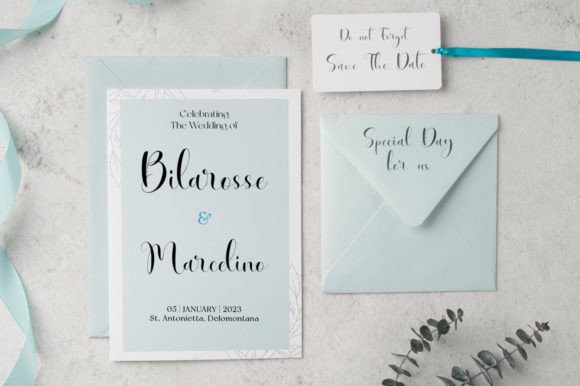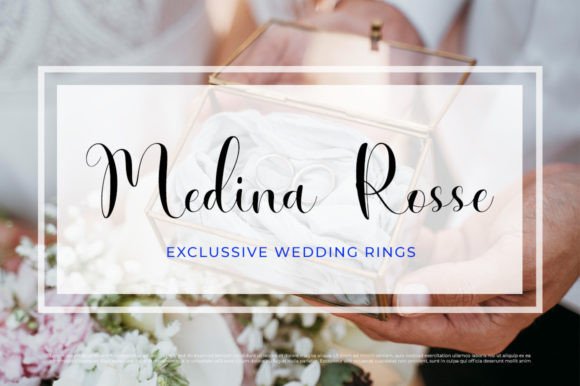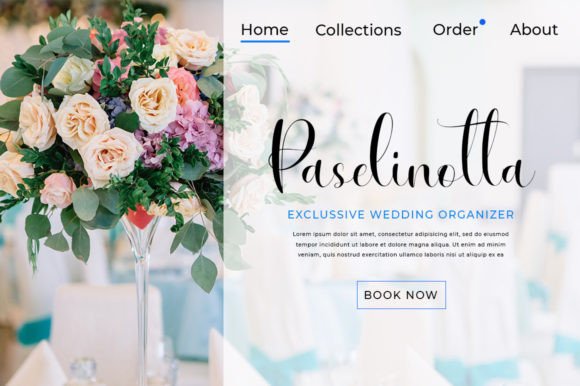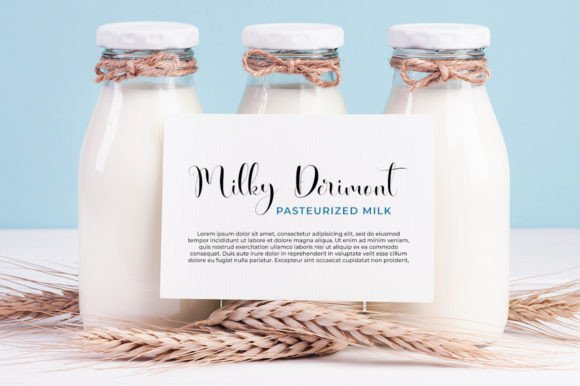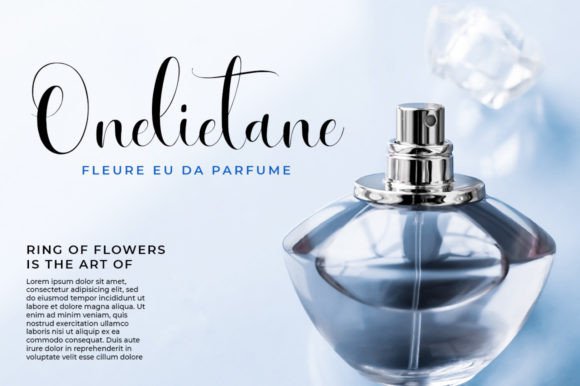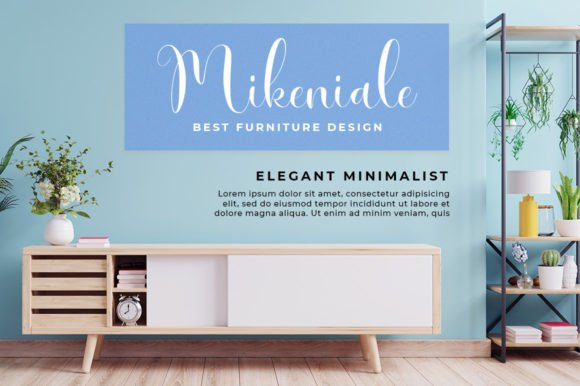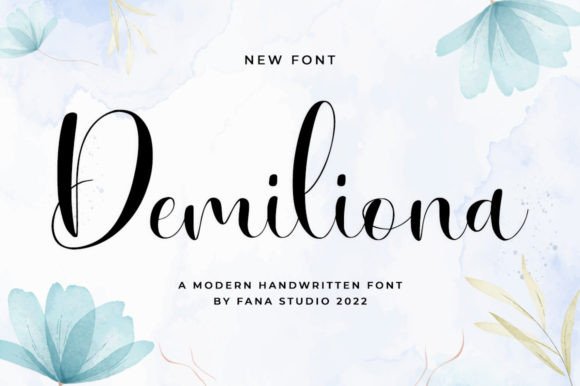
Discover the Charm of Demiliona Font: A Sweet and Cursive Handwritten Delight
Are you on the hunt for a font that adds a touch of sweetness and romance to your design projects? Look no further than the Demiliona Font! This beautiful, cursive handwritten font is perfect for designers and crafters who want to infuse their work with a sense of joy and whimsy. In this article, we’ll dive into the world of Demiliona Font, exploring its features, uses, and benefits, and why it’s a must-have for any creative looking to elevate their designs.
What is Demiliona Font?
Demiliona Font is a sweet and cursive handwritten font that boasts a gentle, elegant feel. Its flowing lines and curves create a sense of movement and fluidity, making it perfect for designs that require a touch of sophistication and whimsy. Whether you’re working on a branding project, a wedding invitation, or a craft tutorial, Demiliona Font is sure to add a romantic and joyful touch to your work.
Key Features of Demiliona Font
- Sweet and Cursive: Demiliona Font features a beautiful, cursive script that’s perfect for adding a touch of elegance to your designs.
- Handwritten Feel: The font’s handwritten feel gives it a personal and organic touch, making it perfect for designs that require a sense of warmth and personality.
- Versatile: Demiliona Font is incredibly versatile, and can be used on a wide range of design projects, from branding and advertising to crafting and DIY tutorials.
- Easy to Read: Despite its cursive nature, Demiliona Font is surprisingly easy to read, making it perfect for designs that require a clear and concise message.
Uses for Demiliona Font
So, what can you use Demiliona Font for? The possibilities are endless! Here are a few ideas to get you started:
- Branding and Logo Design: Use Demiliona Font to create a beautiful and elegant logo that sets your brand apart.
- Wedding Invitations and Stationery: Add a touch of romance and whimsy to your wedding invitations and stationery with Demiliona Font.
- Crafting and DIY Tutorials: Use Demiliona Font to add a personal touch to your crafting and DIY tutorials, making them feel more approachable and fun.
- Social Media Graphics: Add a touch of elegance and sophistication to your social media graphics with Demiliona Font.
Benefits of Using Demiliona Font
So, why should you choose Demiliona Font for your design projects? Here are just a few benefits:
- Unique and Eye-Catching: Demiliona Font is a unique and eye-catching font that’s sure to set your designs apart from the crowd.
In conclusion, Demiliona Font is a sweet and cursive handwritten font that’s perfect for designers and crafters who want to add a touch of joy and romance to their designs. With its elegant feel, versatility, and ease of use, Demiliona Font is a must-have for any creative looking to elevate their designs. Whether you’re working on a branding project, a wedding invitation, or a craft tutorial, Demiliona Font is sure to be a valuable addition to your design toolkit.